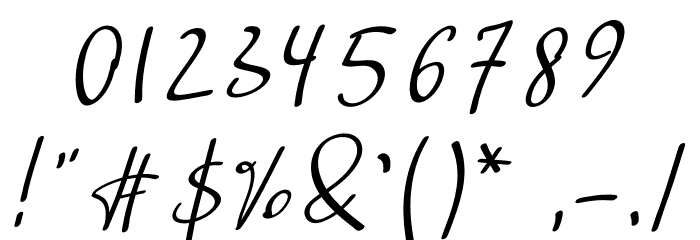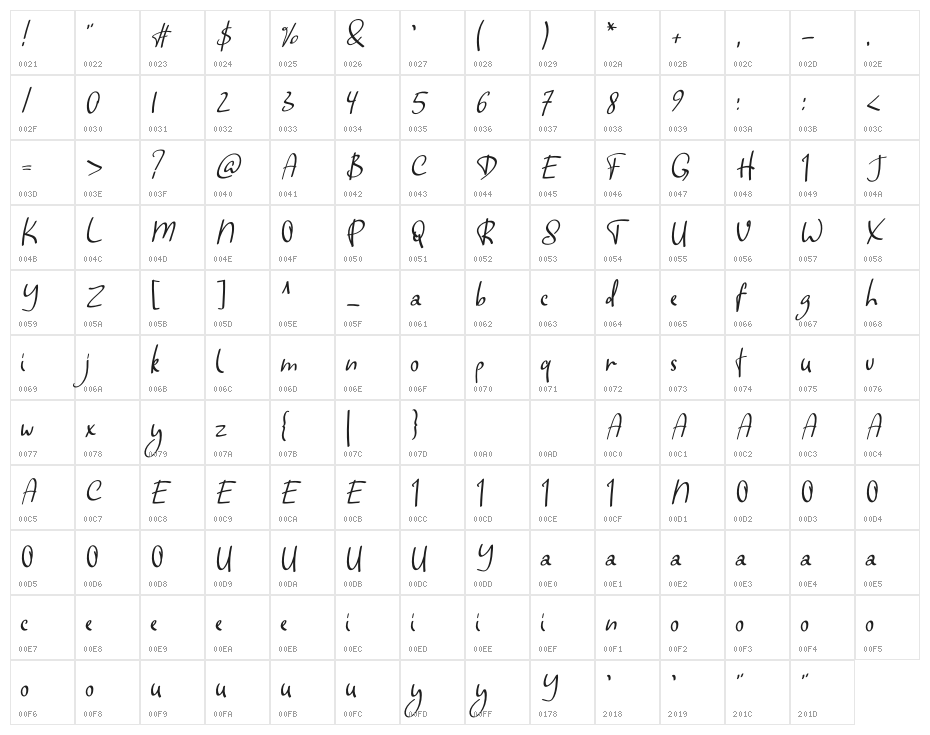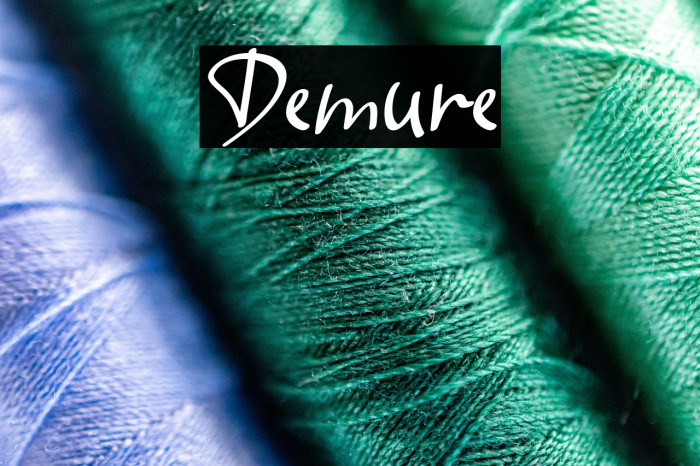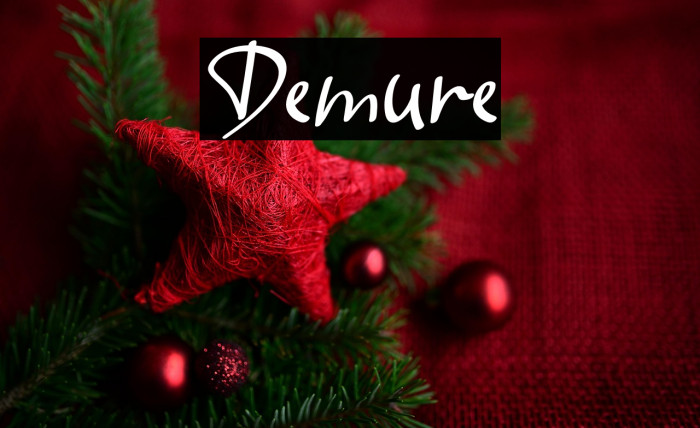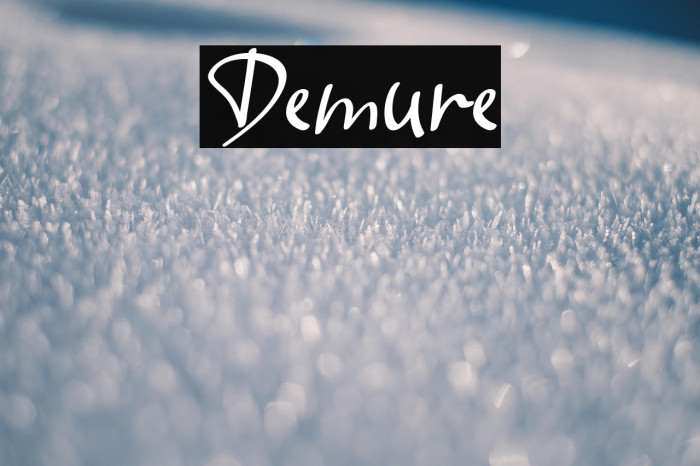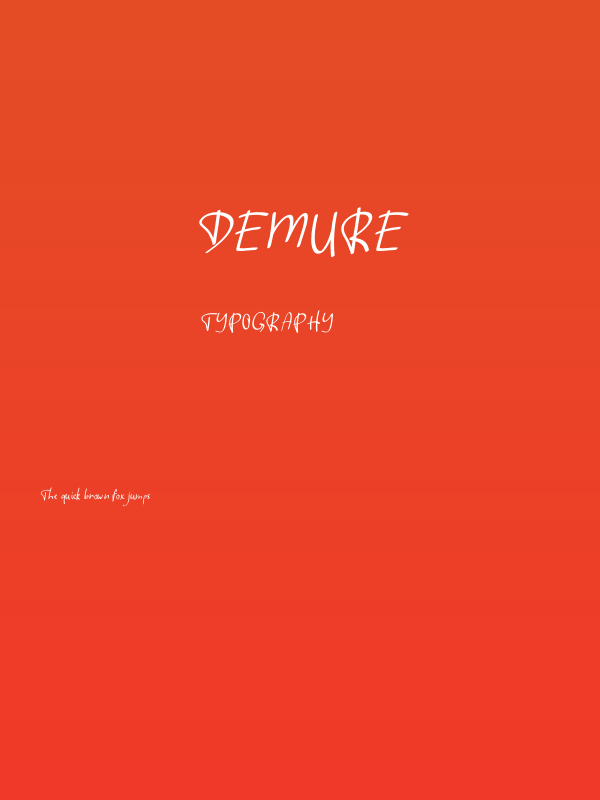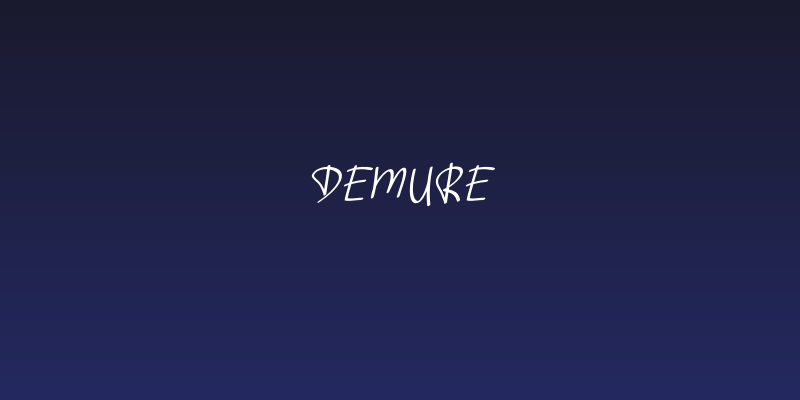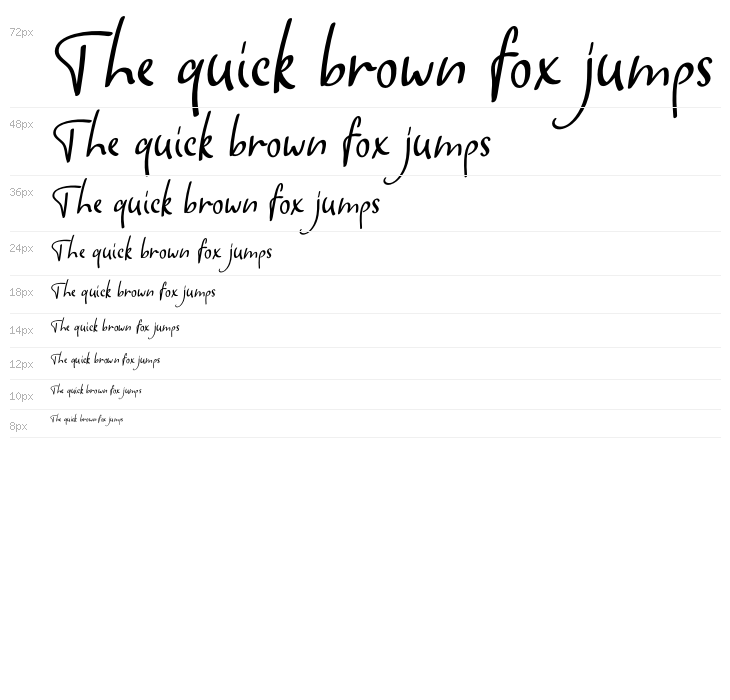
Demure Font
Demure Description
This font exudes a casual and artistic flair, characterized by its handwritten style that mimics the fluidity and spontaneity of natural handwriting. The letters are slightly slanted, adding a dynamic and lively feel to the text. The strokes vary in thickness, providing a medium contrast that enhances readability while maintaining an informal aesthetic. The uppercase letters are bold and prominent, while the lowercase letters are more delicate and flowing. The numerals and special characters are consistent with the overall style, ensuring a cohesive look across different text elements. This font is perfect for projects that require a personal touch, such as invitations, greeting cards, or creative branding.
| Overall Style | Casual, Artistic |
| Use Case | Invitations, Greeting cards, Creative branding |
| Proposed Projects | Ideal for invitations, greeting cards, creative branding, and personal projects. |